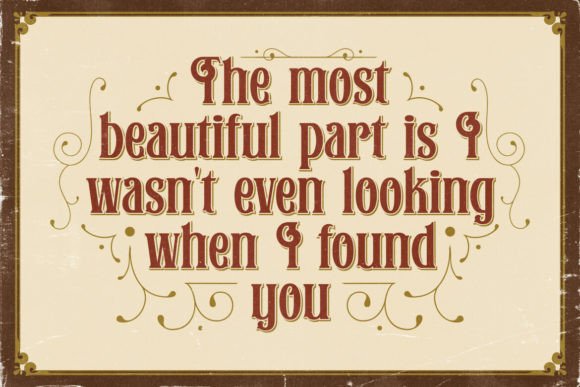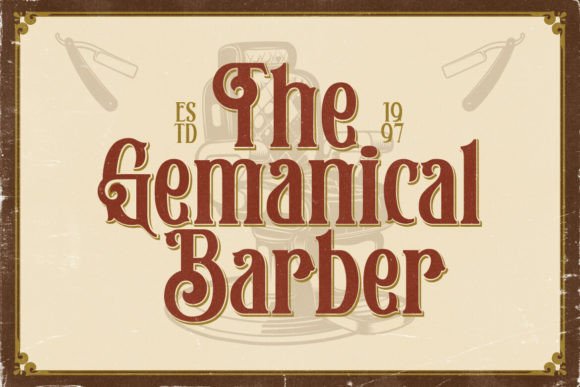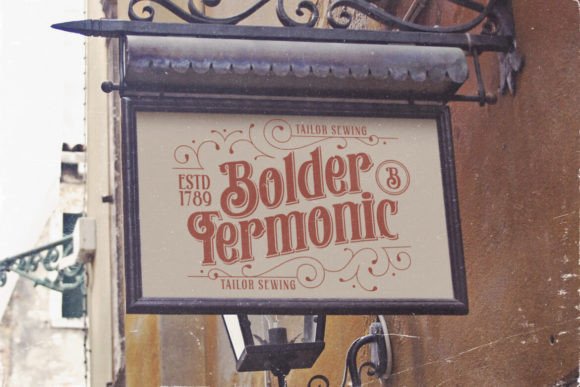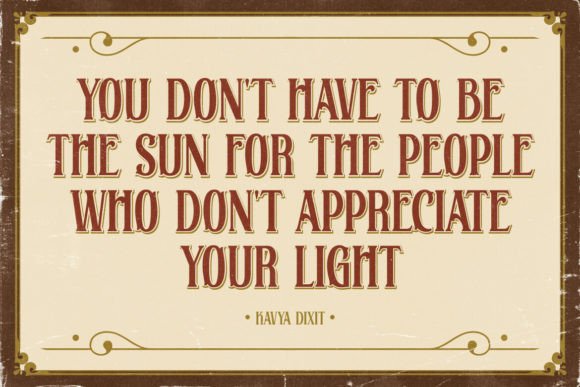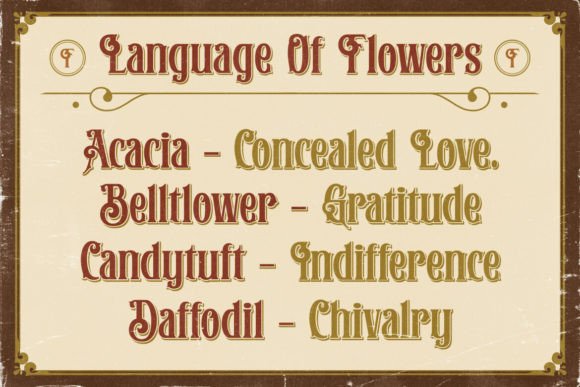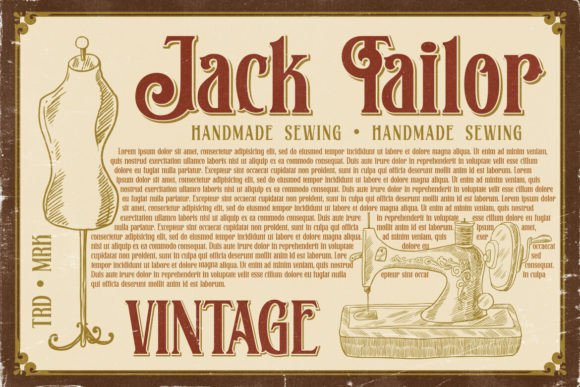
Discover the Timeless Charm of Christon Hunington Font
Are you looking for a way to add a touch of vintage elegance to your design projects? Look no further than the Christon Hunington font, a beautiful and classic typeface that is sure to bring a sense of nostalgia and sophistication to any design. In this article, we’ll explore the unique characteristics of the Christon Hunington font, its uses, and why it’s a must-have for designers and crafters.
What is Christon Hunington Font?
Christon Hunington is a vintage typeface font that has been carefully crafted to evoke the charm and character of classic typography. With its elegant lines, refined curves, and distinctive letterforms, this font is the perfect choice for designers who want to add a touch of old-time charm to their work. Whether you’re creating a logo, brochure, or website, the Christon Hunington font is sure to make your design stand out.
Unique Characteristics of Christon Hunington Font
So, what sets the Christon Hunington font apart from other typefaces? Here are just a few of its unique characteristics:
- Elegant Lines and Curves: The Christon Hunington font features elegant lines and refined curves that give it a sophisticated and classic look.
- Distinctive Letterforms: Each letterform in the Christon Hunington font has been carefully crafted to be unique and distinctive, making it perfect for use in titles, headings, and other design elements.
- Vintage Charm: The Christon Hunington font has a distinctly vintage feel that is sure to add a touch of nostalgia and charm to any design.
Uses of Christon Hunington Font
The Christon Hunington font is incredibly versatile and can be used in a wide range of design projects, including:
- Logos and Branding: The Christon Hunington font is perfect for creating logos and branding materials that require a touch of elegance and sophistication.
- Brochures and Flyers: Add a touch of vintage charm to your brochures and flyers with the Christon Hunington font.
- Websites: Use the Christon Hunington font to create a unique and memorable website that stands out from the crowd.
- Stationery and Invitations: The Christon Hunington font is perfect for creating stationery, invitations, and other paper goods that require a touch of elegance and sophistication.
Why Choose Christon Hunington Font?
So, why should you choose the Christon Hunington font for your design projects? Here are just a few reasons:
- Timeless Appeal: The Christon Hunington font has a timeless appeal that will never go out of style.
- Elegance and Sophistication: The Christon Hunington font adds a touch of elegance and sophistication to any design.
- Versatility: The Christon Hunington font can be used in a wide range of design projects, from logos and branding to websites and stationery.
In conclusion, the Christon Hunington font is a beautiful and classic typeface that is sure to add a touch of vintage charm to any design project. With its elegant lines, refined curves, and distinctive letterforms, this font is the perfect choice for designers who want to create sophisticated and memorable designs. Don’t miss the opportunity to infuse your designs with the elegance and nostalgia of vintage typography – try the Christon Hunington font today!
Christon Hunington is a Vintage typeface font, it will add an old-time charm to any design project. Don’t miss the opportunity to infuse your designs with the elegance and nostalgia of vintage typography. This vintage font is the perfect companion for your creative journey.